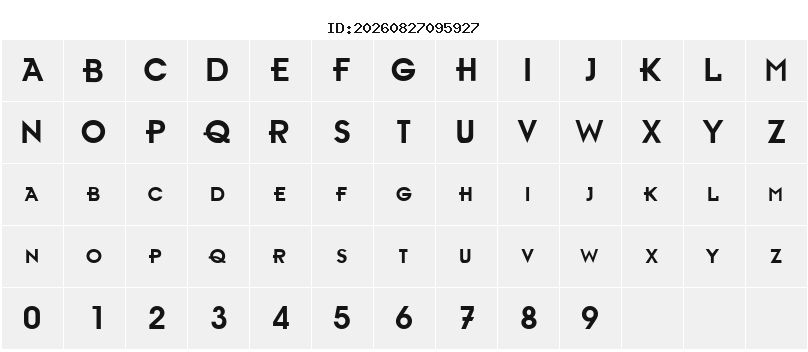
About 325-CAI978.ttf
325-CAI978.ttf is a modern, elegant sans-serif font designed for ultimate readability and visual harmony. Perfect for branding, headlines, web design, and print materials.